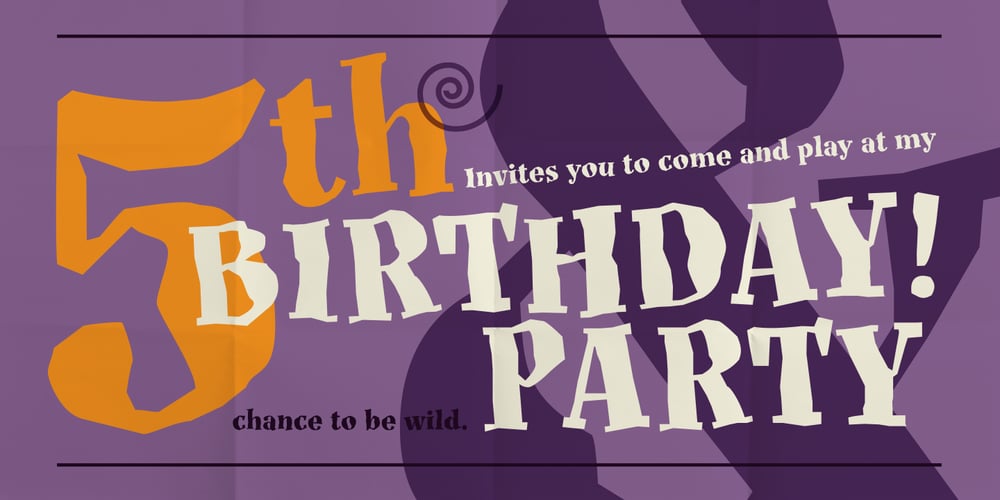
Collage BB Font Family was designed by Lazar Dimitrijević and published by Posterizer KG. Collage BB contains 1 styles and family package options. Collage BB font was created for visual imitating of cuted paper Serif letters. The idea was to imitate kid’s clumsiness and irregular shape of letters. Good readability allows using this font for making some long texts. The font contains all the Latin and Cyrillic glyphs. BB – Bajina Bašta (Bašta in English means Garden) is the name of the small town where I spent my carefree childhood. That’s why I was inspired by Peter Pan.